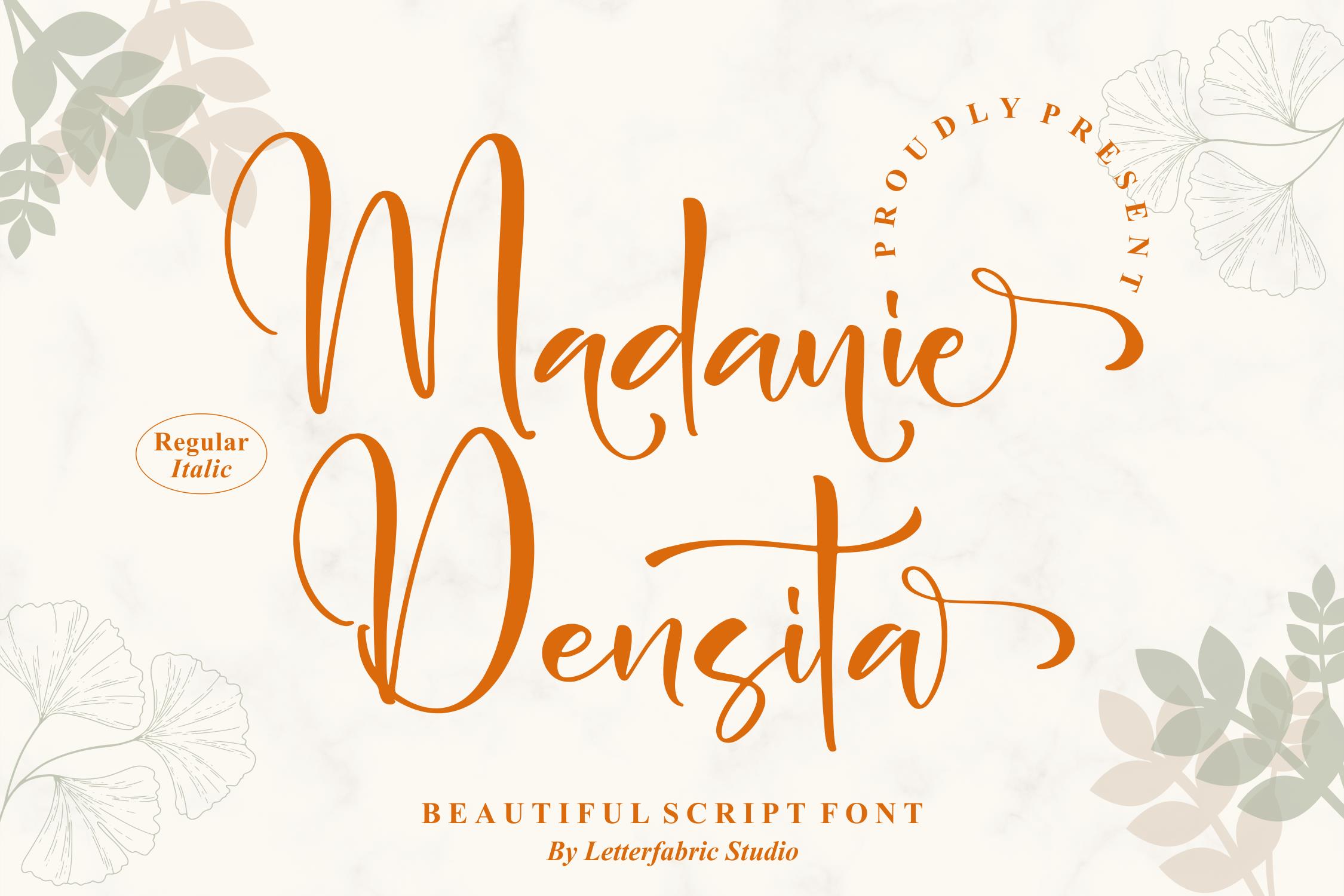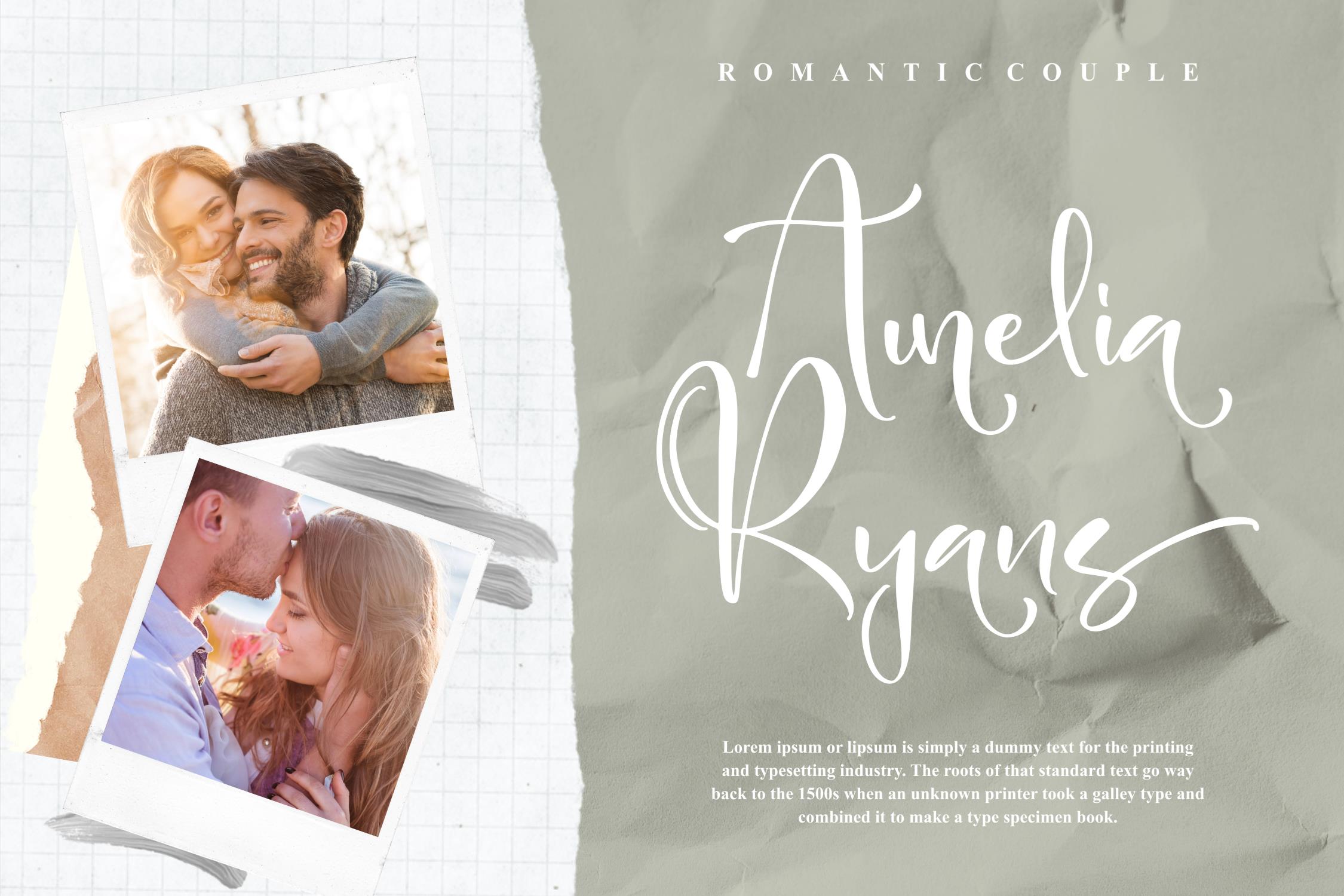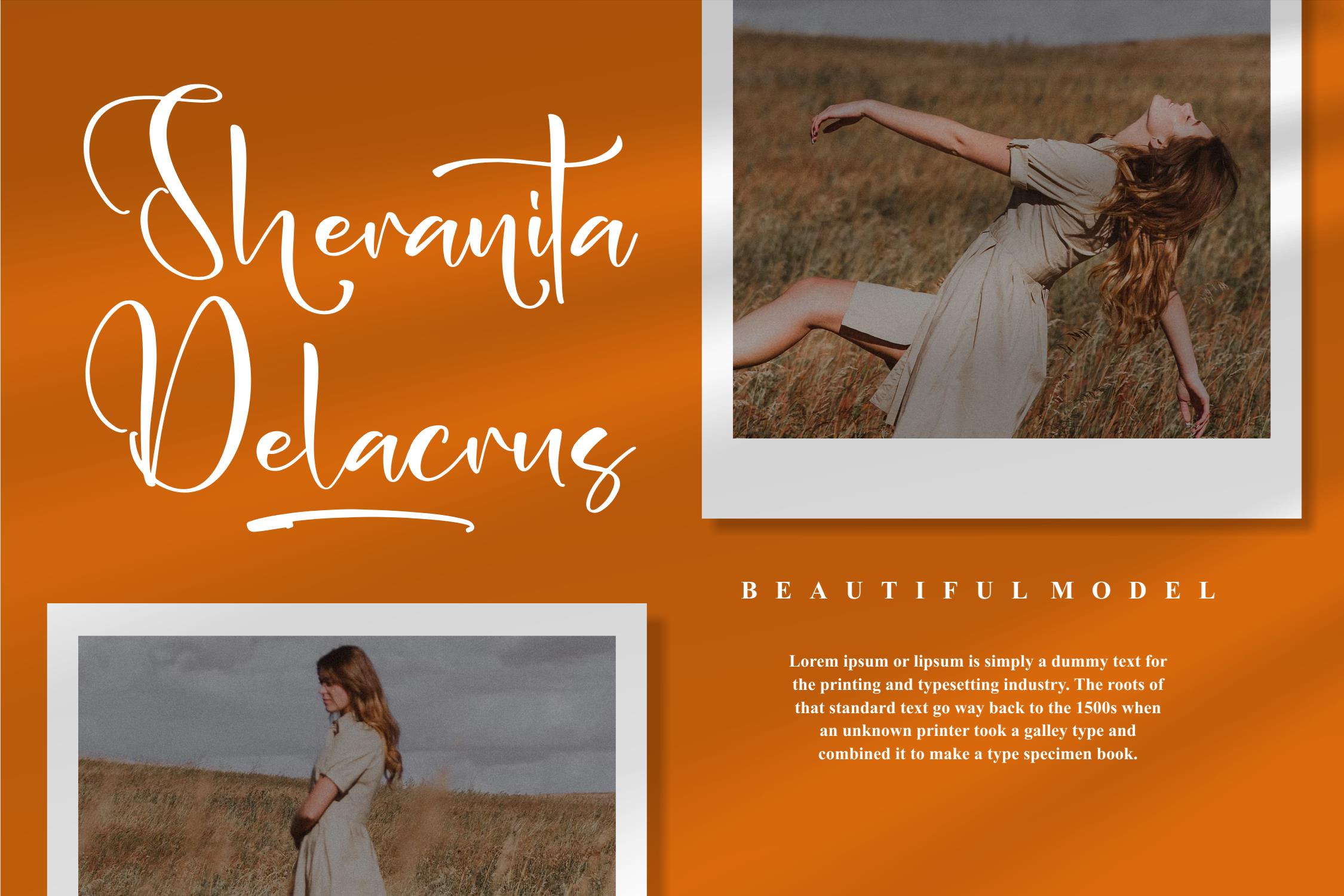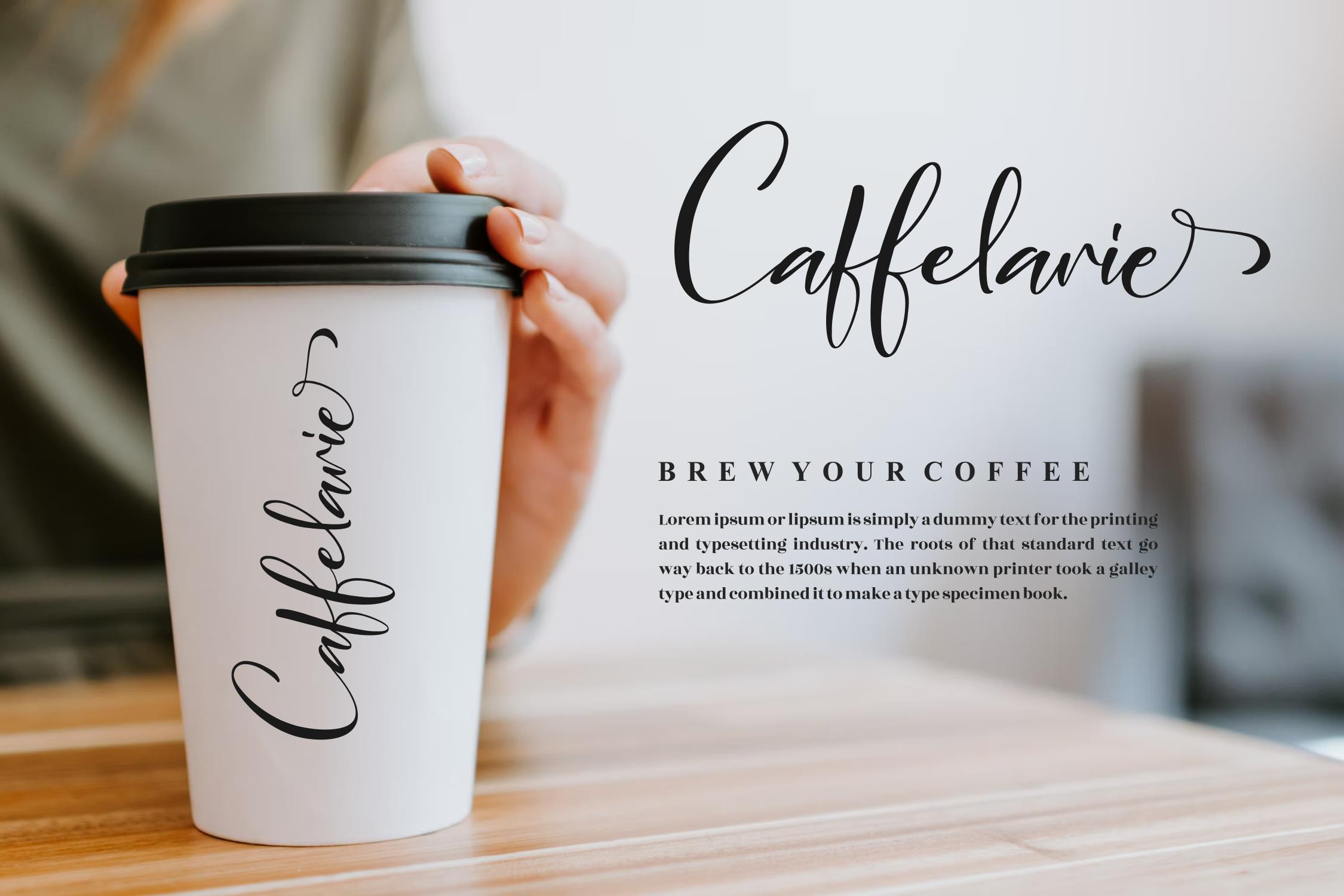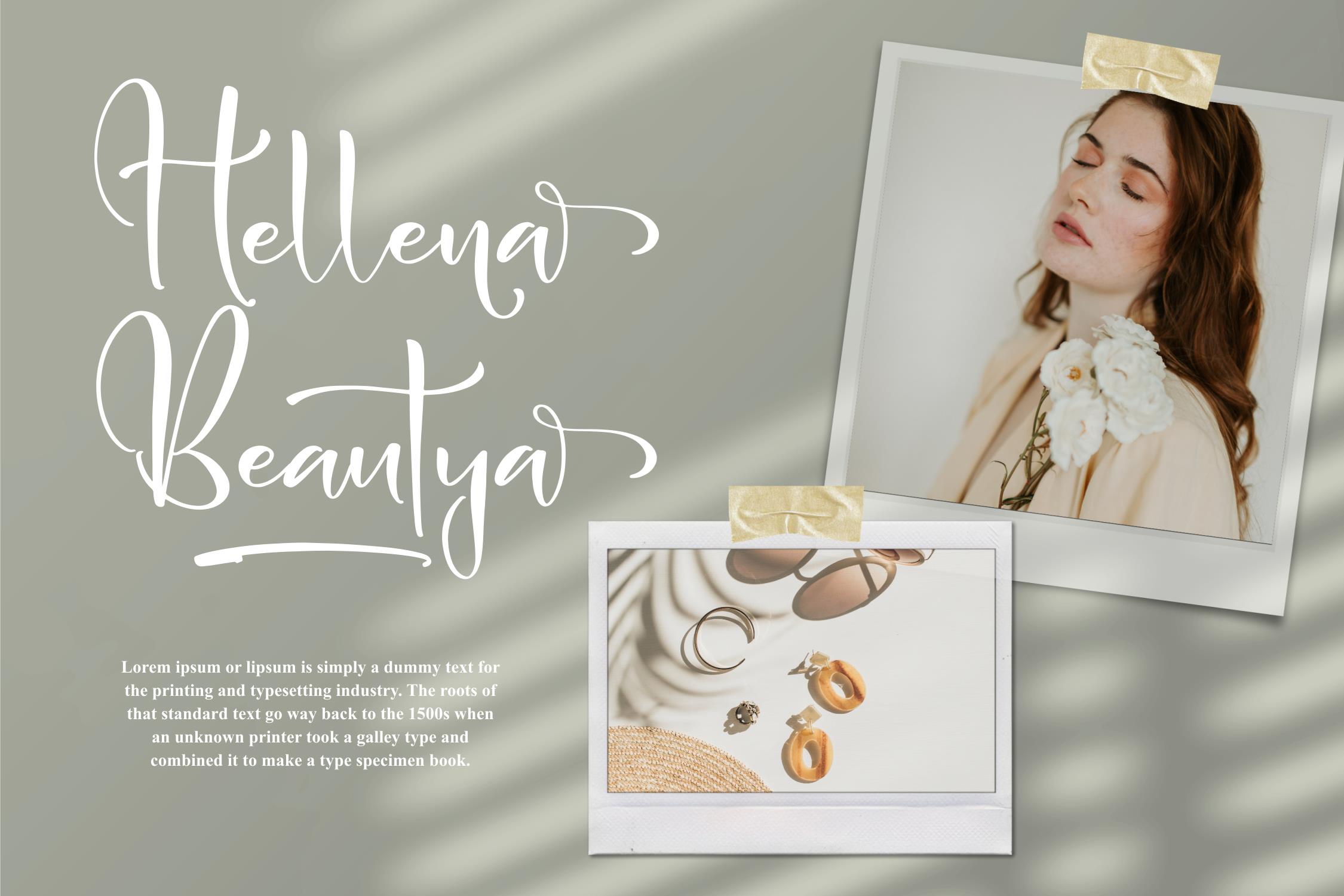
Medanie Densita Font
Medanie Densita Font – Beautiful Script Font, from Letterfabric Studio, is a suitable for any projects such as: logos, branding projects, homeware designs, product packaging, mugs, quotes, posters, shopping bags, t-shirts, book covers, name card, invitation cards, greeting cards, label, photography, watermark, special events, and all your other lovely projects that need a beautiful script taste.